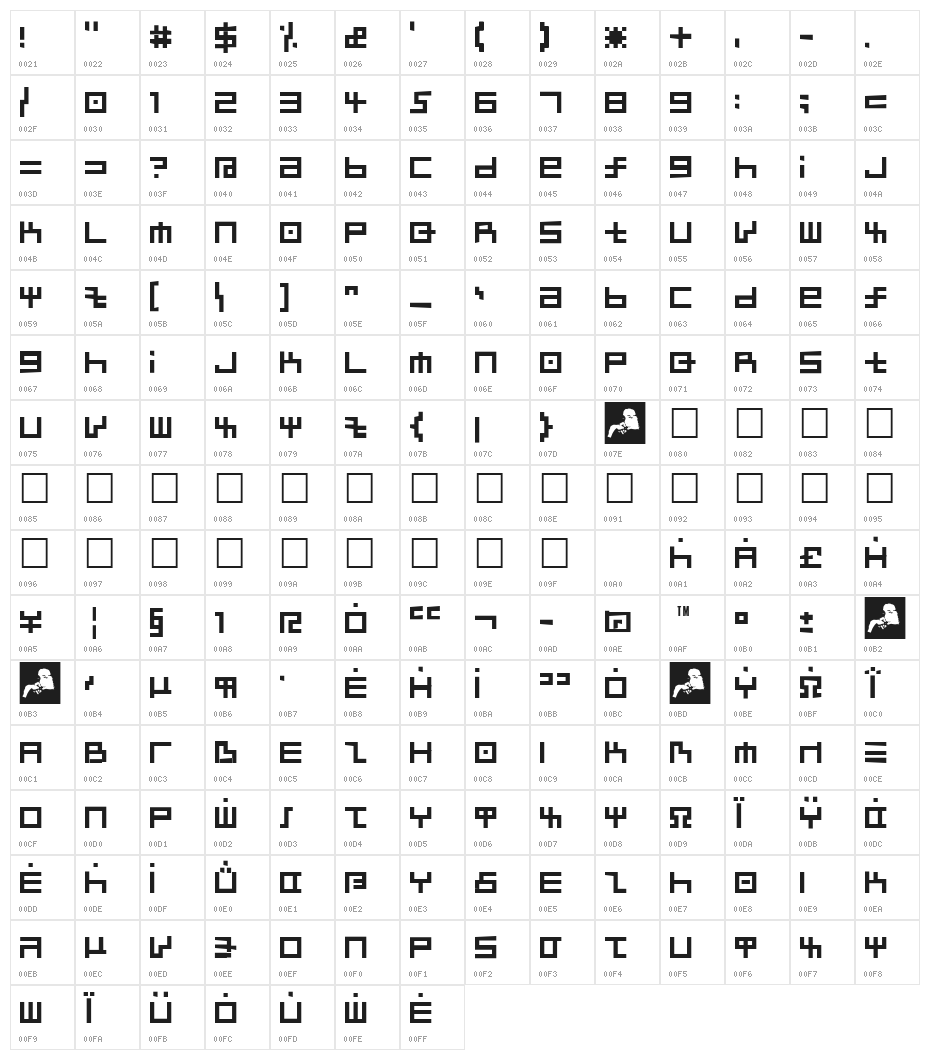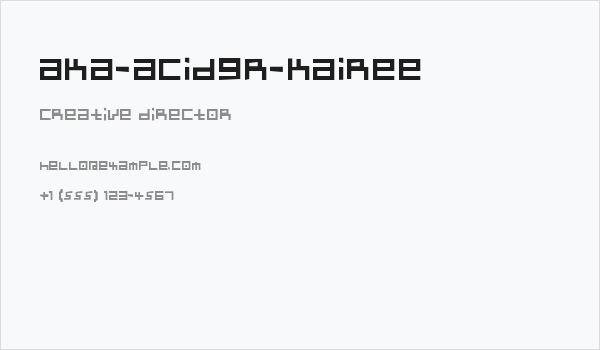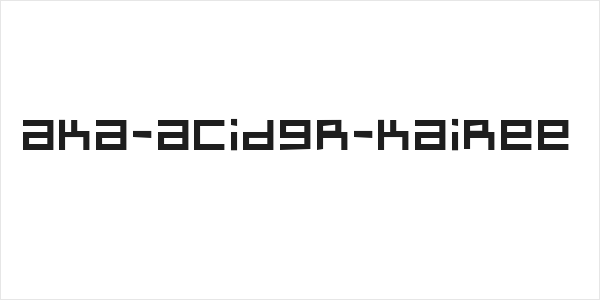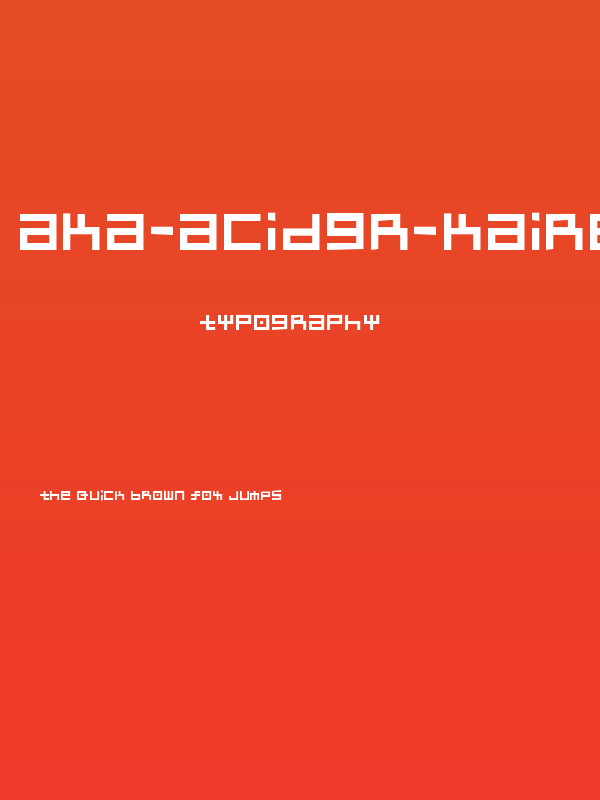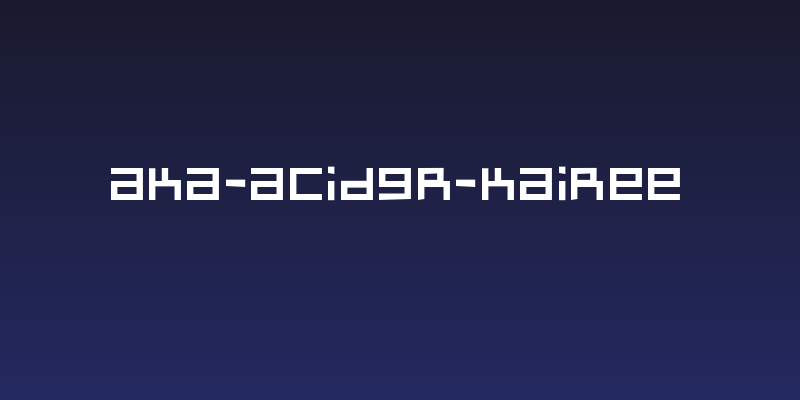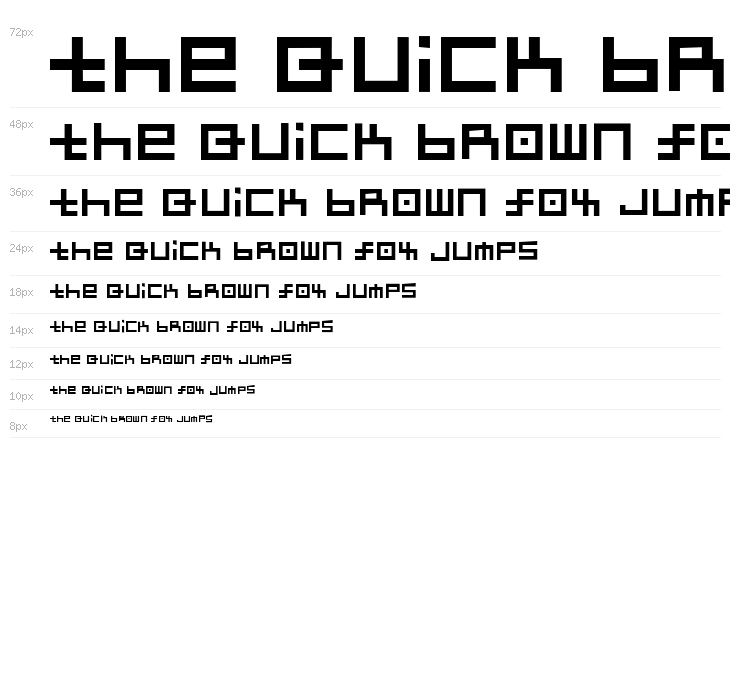
Aka-AcidGR-Kairee Font
Aka-AcidGR-Kairee Description
This font features a bold, geometric design with a distinctly digital aesthetic. Each character is constructed with sharp, angular lines and a consistent stroke width, giving it a blocky, pixelated appearance. The uppercase and lowercase letters maintain a uniform height, enhancing the font's structured and cohesive look. The numerals and special characters follow the same design principles, ensuring visual harmony across all glyphs. This font's style is reminiscent of early computer graphics and arcade game text, making it ideal for projects that require a retro or tech-inspired feel.
| Overall Style | Modern, Retro |
| Proposed Projects | Ideal for retro video game designs, tech-themed posters, digital art projects, and any creative work that requires a futuristic or nostalgic touch. |